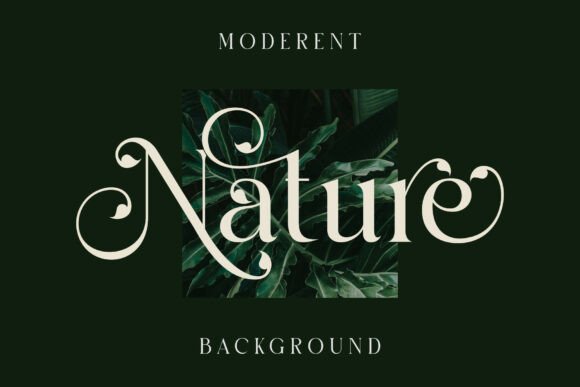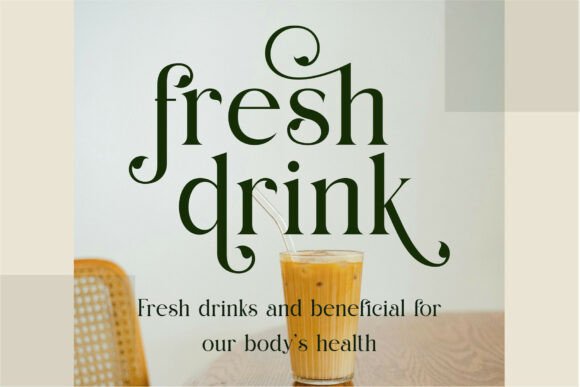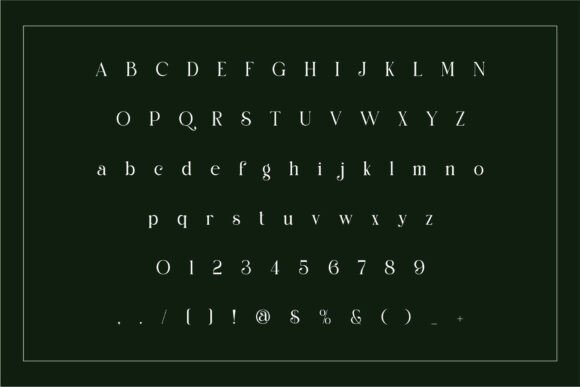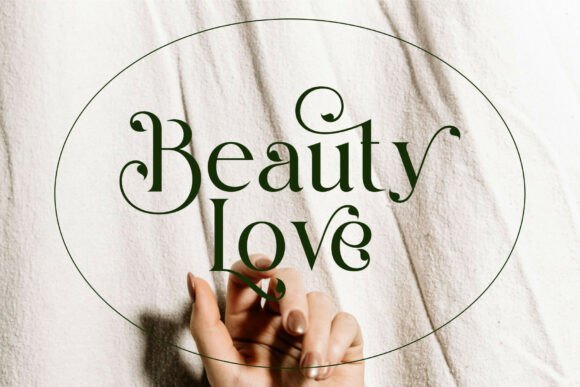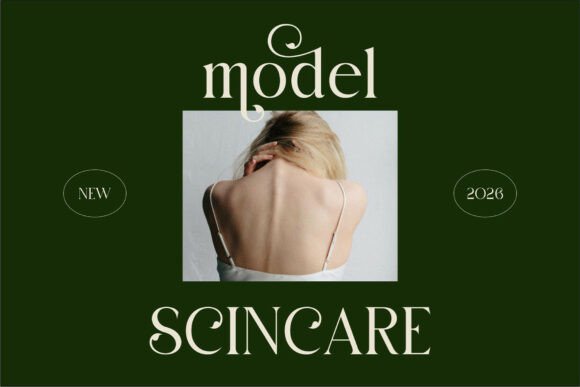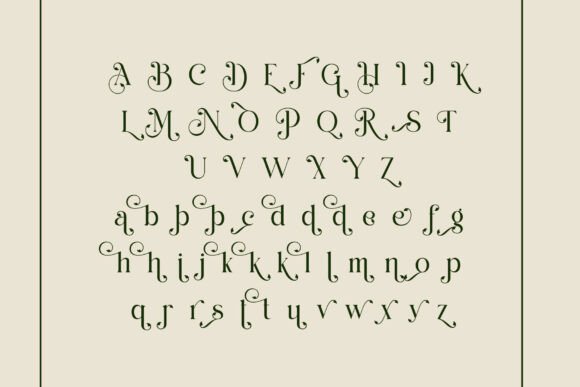
Introducing Blade Frond Font: Elevate Your Designs with Elegance and Sophistication
In the world of typography, a font can make or break a design. For designers and crafters seeking a unique and captivating style, Blade Frond Font is an exceptional choice. This stunning display serif font boasts a modern, feminine, and retro aesthetic, perfect for creating eye-catching logos, branding, and various design projects.
Unparalleled Elegance and Smooth Swashes
Blade Frond Font’s distinctive feature is its elegant and smooth swash style, evident in every character. This font’s refined and sophisticated look makes it ideal for designers who want to add a touch of luxury to their work. Whether you’re creating a logo, crafting a poster, or designing packaging, Blade Frond Font’s swashes will undoubtedly elevate your design.
Blade Frond Font’s versatility is one of its greatest strengths. Its unique style makes it suitable for a wide range of design applications, including:
- Branding: Establish a strong brand identity with a custom logo or typography that exudes elegance and sophistication.
- Logo Designs: Create a lasting impression with a distinctive logo that showcases your brand’s personality.
- Logotype: Craft a memorable and impactful logotype that sets your brand apart.
- Craft: Add a touch of refinement to your craft projects, such as handmade cards, gift tags, or DIY packaging.
- Posters: Create striking posters that grab attention with Blade Frond Font’s bold and eye-catching style.
- Packaging: Elevate your product packaging with a sophisticated and modern typography.
Why Choose Blade Frond Font?
With so many fonts available, why choose Blade Frond Font? Here are a few compelling reasons:
- Unique Style: Blade Frond Font offers a distinctive and modern style that will set your designs apart.
- Feminine and Retro Aesthetic: This font’s feminine and retro charm makes it perfect for designers seeking a touch of nostalgia and elegance.
- Elegant Swashes: The smooth swashes in every character add a level of sophistication to your designs.
- Versatility: Blade Frond Font is suitable for a wide range of design applications, making it a valuable addition to your font collection.
Tips for Using Blade Frond Font Effectively
To get the most out of Blade Frond Font, consider the following tips:
- Pair with Neutral Fonts: Combine Blade Frond Font with neutral fonts to create a balanced and harmonious design.
- Experiment with Colors: Play with different colors to find the perfect match for your design and brand.
- Pay Attention to Kerning: Adjust the kerning to ensure that the swashes and characters flow smoothly.
- Use for Headings and Titles: Blade Frond Font is perfect for headings and titles, making it an excellent choice for posters, flyers, and brochures.
Blade Frond Font is a stunning display serif font that offers a unique blend of elegance, sophistication, and playfulness. Its smooth swashes and feminine aesthetic make it perfect for designers and crafters seeking a distinctive style. With its versatility and range of applications, Blade Frond Font is an excellent addition to any design project. Elevate your designs with this beautiful font and discover a world of creative possibilities.